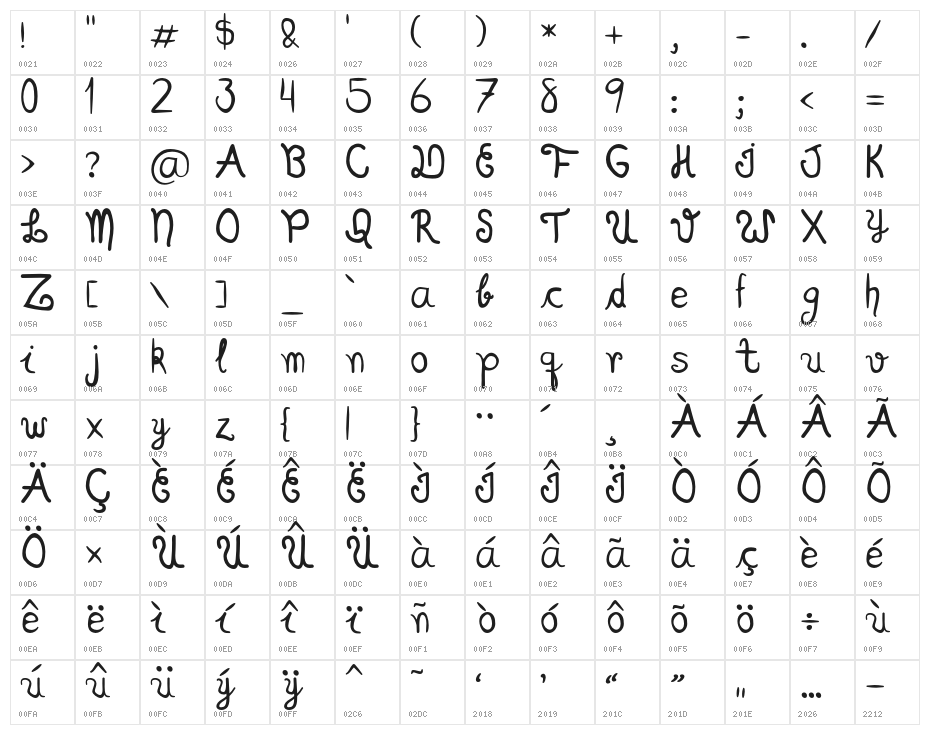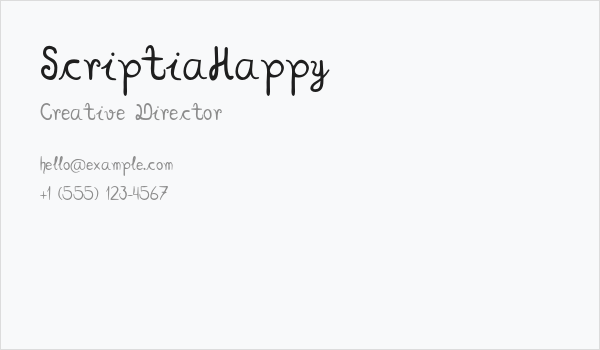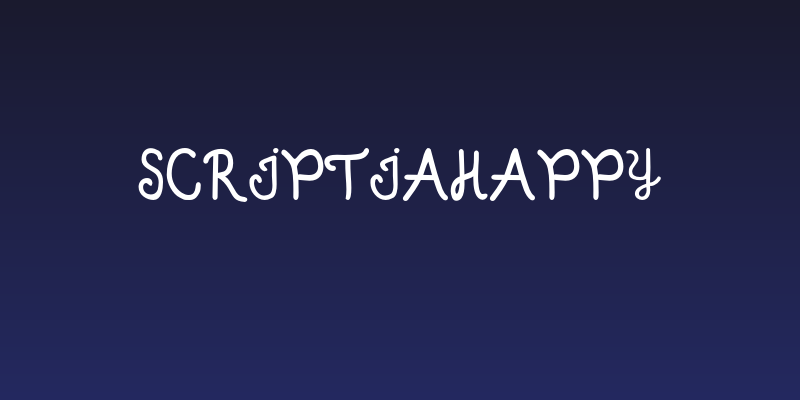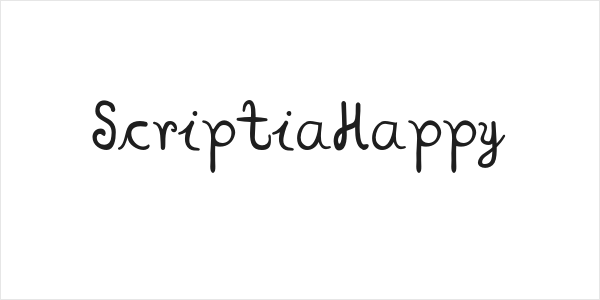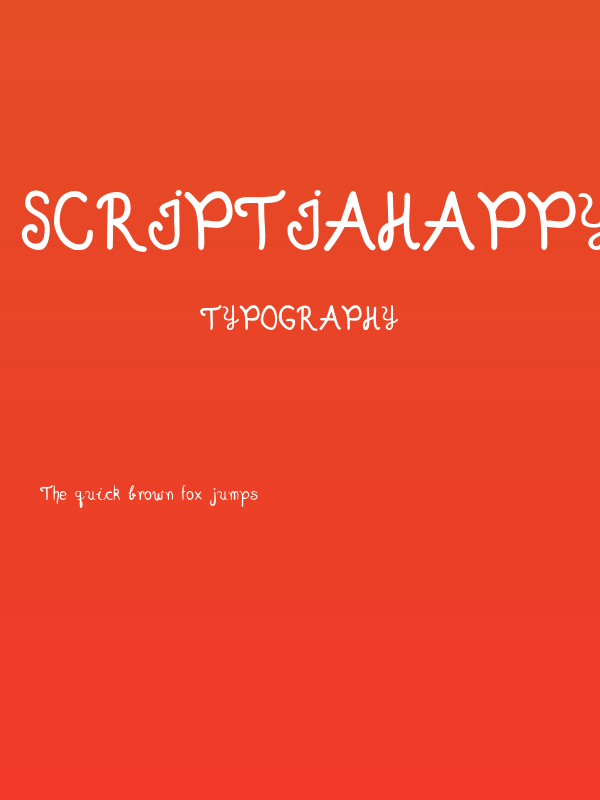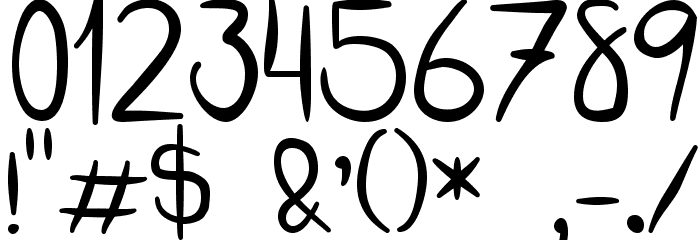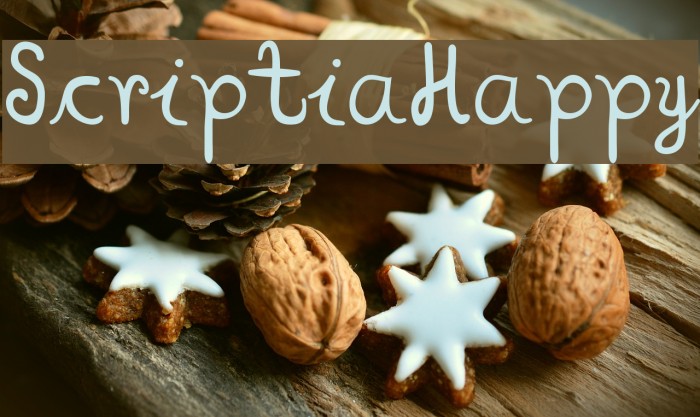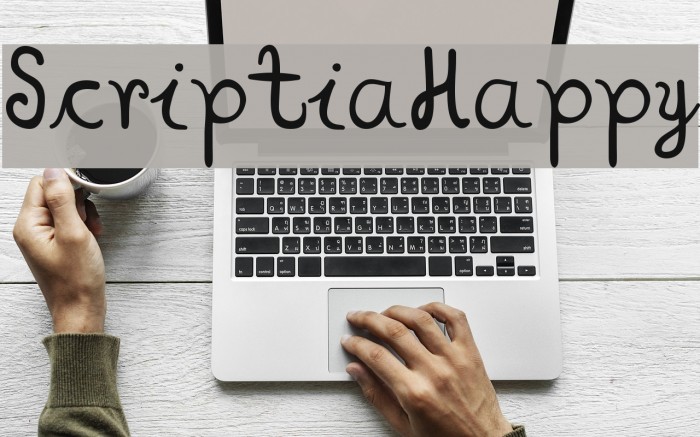
ScriptiaHappy Font
ScriptiaHappy Description
This font features a playful and whimsical design, characterized by its curly and flowing letterforms. The uppercase letters exhibit a unique blend of curves and angles, creating a dynamic and lively appearance. The lowercase letters maintain a consistent style, with smooth, rounded edges and occasional loops that add to the font's charm. Numbers are bold and slightly exaggerated, enhancing readability while maintaining the font's overall playful aesthetic. Special characters are creatively designed, complementing the font's distinctive style. This font is perfect for projects that require a touch of fun and creativity, such as children's books, playful branding, or festive invitations.
| Proposed Projects | Ideal for children's books, playful branding, festive invitations, and creative designs. |